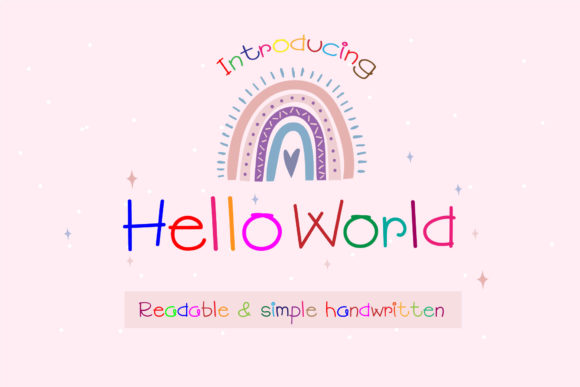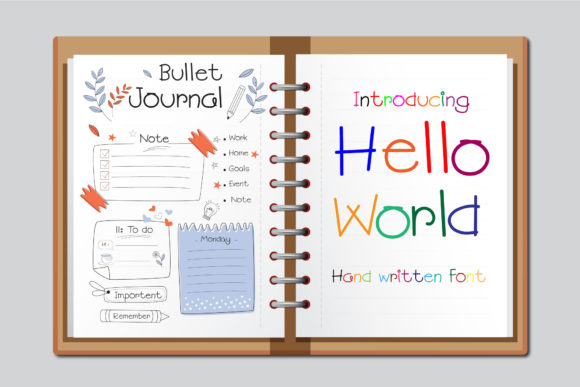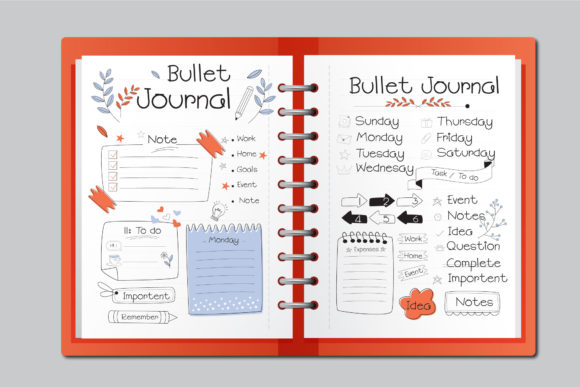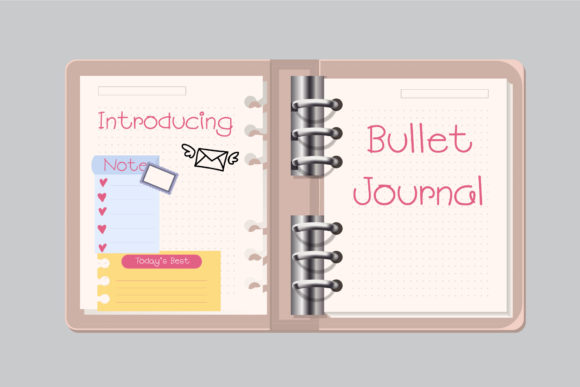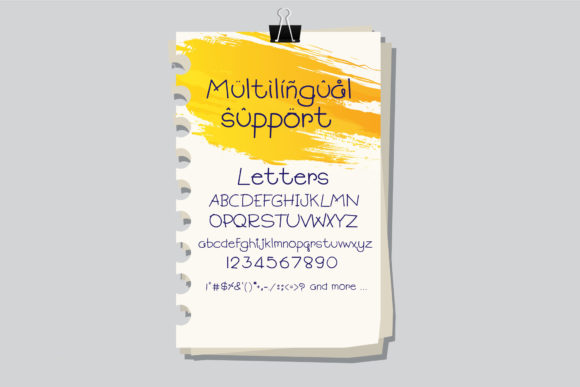
Hello World Font
About Hello World Font
Hello World is a thin, readable and simple handwritten font. No matter the topic, this font will be an incredibly asset to your fonts’ library, as it has the potential to elevate any creation.